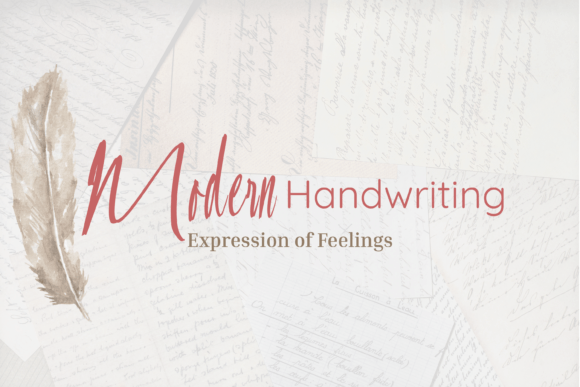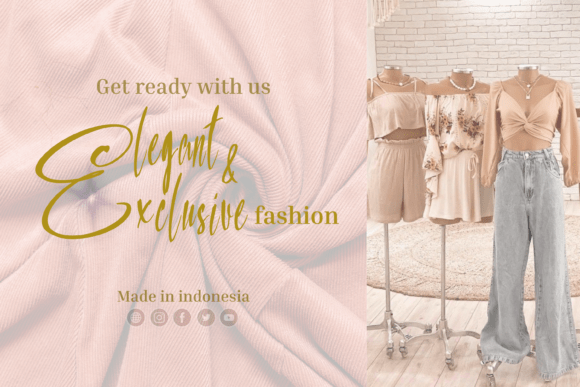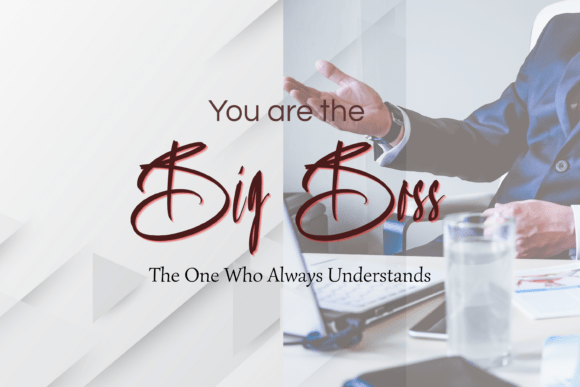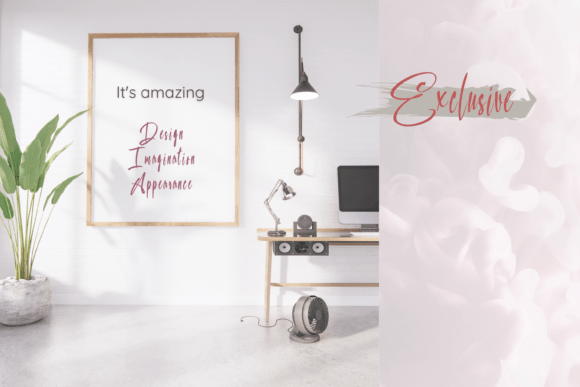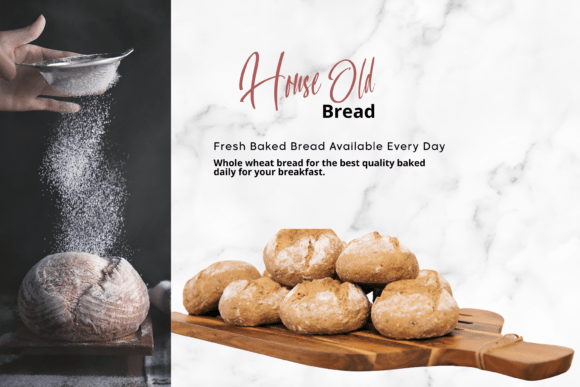
Introduction to Meta Script Font
Meta Script — Modern Handwritten Calligraphy Font Meta Script is a stylish, easy-to-use script font that brings the grace of handwritten calligraphy to professional, everyday design.
Smooth connections, balanced rhythm, and clear letterforms make it wonderfully readable, while its elegant, contemporary voice adds personality to logos, branding, packaging, invitations, social media graphics, and websites The typeface includes the full basic character set—letters, numbers, and punctuation—so you can set quotes, names, and short headlines with confidence.